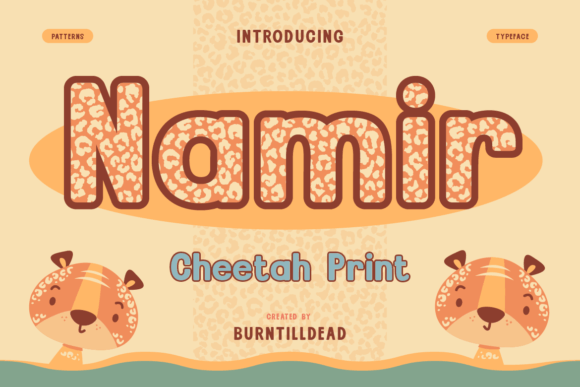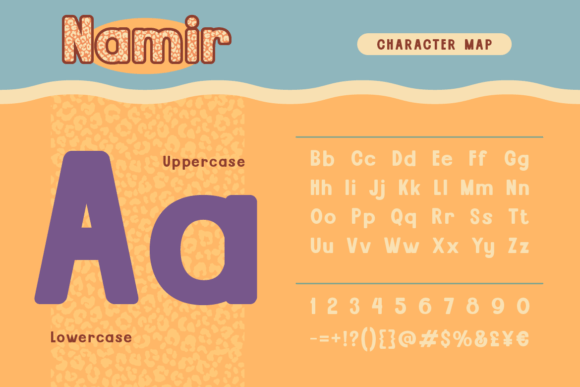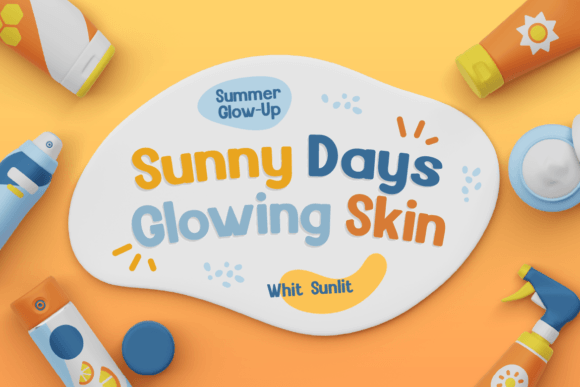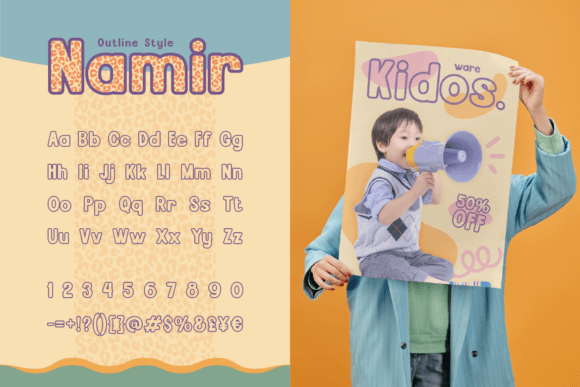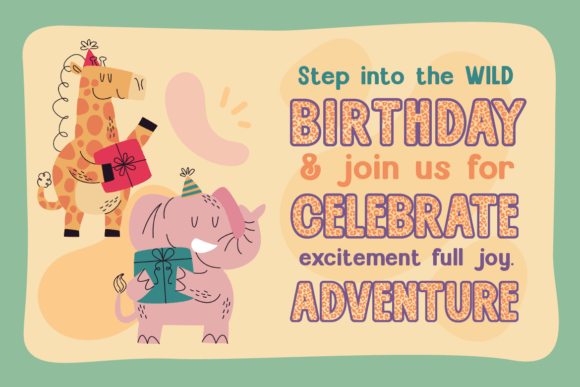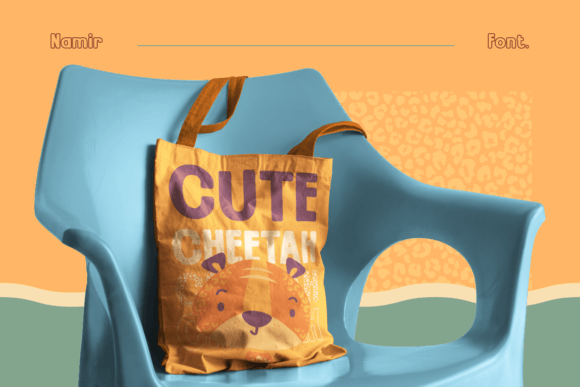
Introduction to Namir Font
Have you ever been working on a creative project, and you just can’t seem to find the right font to give it that extra oomph? You know, that one thing that sets your design apart from the rest and makes it truly unforgettable? For designers, finding the perfect font can be a game-changer, and that’s exactly what the Namir Font promises to deliver.
As a design resource that’s as playful as it is impactful, the Namir Font is a hidden gem waiting to be discovered. With its unique cheetah pattern on every letter, this font is sure to add a fun and adventurous touch to any project. And the best part? It’s completely free to download, making it a valuable addition to any designer’s toolkit.
Whether you’re working on a project that requires a high-quality, transparent background or something a bit more whimsical, the Namir Font is a versatile choice that’s sure to impress.
Key Features of Namir Font
- High-quality design: Namir Font is designed with precision and care to provide a unique and creative touch to any project.
- Transparent background: The font features a transparent background, allowing for seamless integration with any design or image.
- High-resolution design: The font is designed at a high resolution, making it perfect for use in large-scale creative projects, such as billboards and posters.
- Perfect for creative projects: Namir Font is ideal for use in various creative projects, including graphic design, digital art, and typography-based art.
Honest Review: Namir Font
I recently stumbled upon the Namir Font, and I must say, it’s been a great addition to my design resources. As a designer, I’m always on the lookout for high-quality fonts that can elevate my creative projects. The Namir Font certainly delivers.
- ✨ The font’s unique design and elegant curves make it perfect for titles and headings.
However, I do have a few minor gripes:
- ⚠️ The font can be a bit too ornate for some designs, so it’s essential to use it sparingly.
- ⚠️ The font family is relatively small, which might limit its versatility in certain projects.
Overall, I’m impressed with the Namir Font. Its high quality and unique design make it a valuable resource for any designer. While it may have some limitations, I believe it’s well worth considering for your next creative project.
Namir Font
Tips for Getting the Most Out of Namir Font
Use Namir Font for your creative projects, such as designing a logo or creating a brochure. The font’s transparent background makes it perfect for designs that require a high level of customization. You can also use Namir Font in combination with other design resources to create a unique and eye-catching design.
Namir Font is a versatile design resource that can be used in a variety of creative projects. Some common use cases include:
– Designing a logo or brand identity
– Creating a brochure or flyer
– Making a presentation or slideshow
– Designing a website or app
Q: Does the Namir Font support transparent backgrounds?
Yes, the Namir Font is designed to work well with transparent backgrounds. The font’s transparent background feature allows for easy integration with custom backgrounds, making it ideal for creative projects that require a high level of design flexibility.